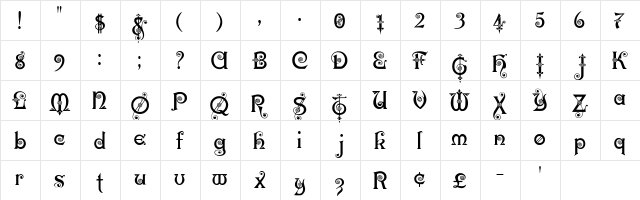
Kar2 Regular Font Preview
Kar2 Regular
Kar2 Regular Font Details
Design Context for Kar2 Typeface
Kar2 is a composed and adaptable typeface that performs quietly and consistently across a wide range of design contexts.